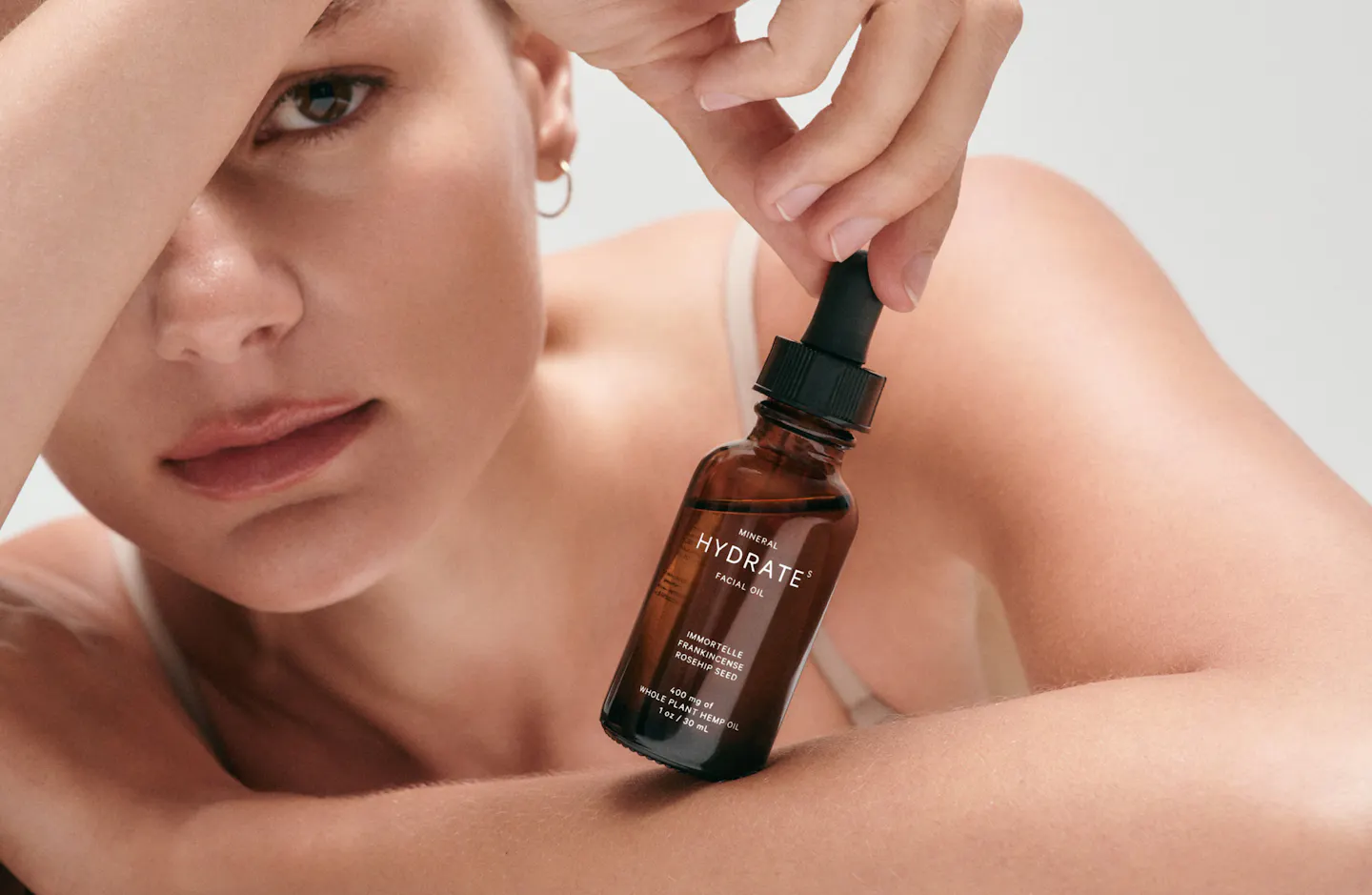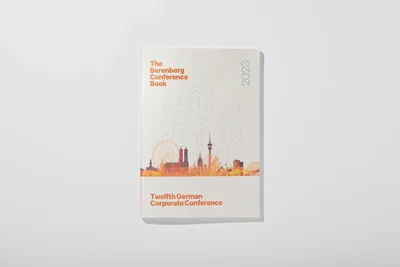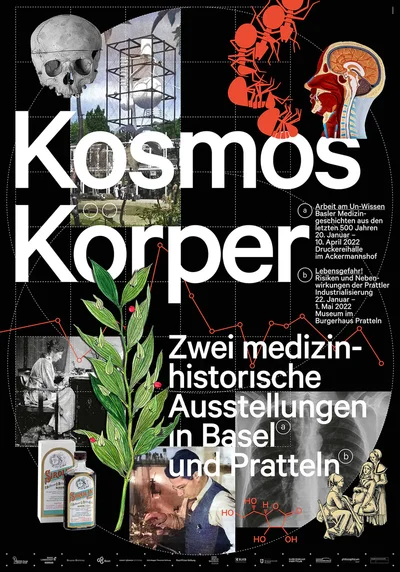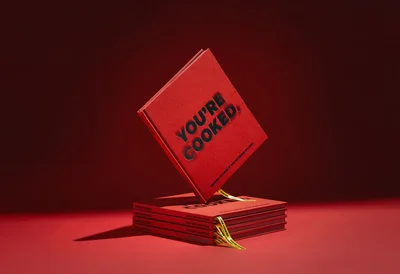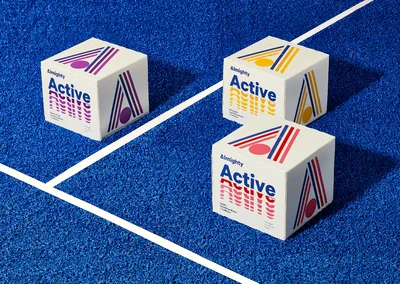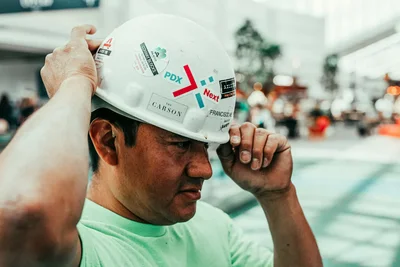
Inter vs Calibre
Inter is the most versatile open-source replacement for Calibre in digital product and branding work. At 85% similarity, both share a disciplined neo-grotesque construction tuned for screen clarity. Inter's variable font support, broader language coverage, and optical sizing make it the practical choice for teams migrating from Calibre.
Recommended: Inter
- Shares Calibre's modern character
- Particularly suited for SaaS product interfaces and design system foundations
- Variable font with continuous weight adjustment
- Supports 7 scripts including cyrillic and cyrillic-extended
- Delivers a modern, clean, professional aesthetic
Consider: Calibre
- Designed specifically for branding and editorial